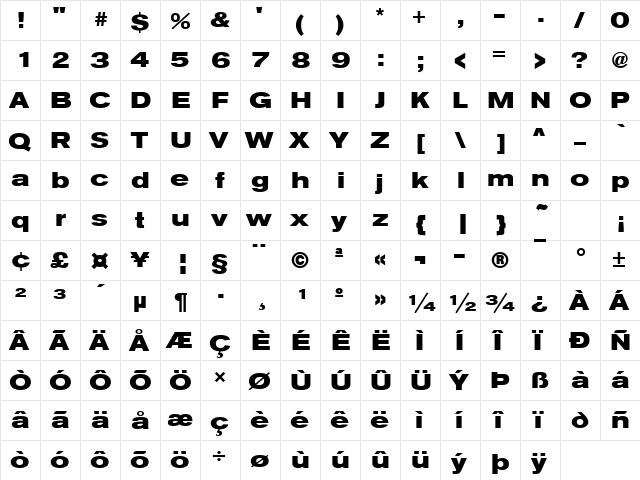
URWAccidaliaTExt Bold Font Preview
URWAccidaliaTExt Bold
Design Context for URWAccidaliaTExt Typeface
URWAccidaliaTExt takes a measured approach to typography — its balanced proportions and neutral character make it a reliable workhorse for both digital and print work. Its bold stroke weight gives it real presence on the page.